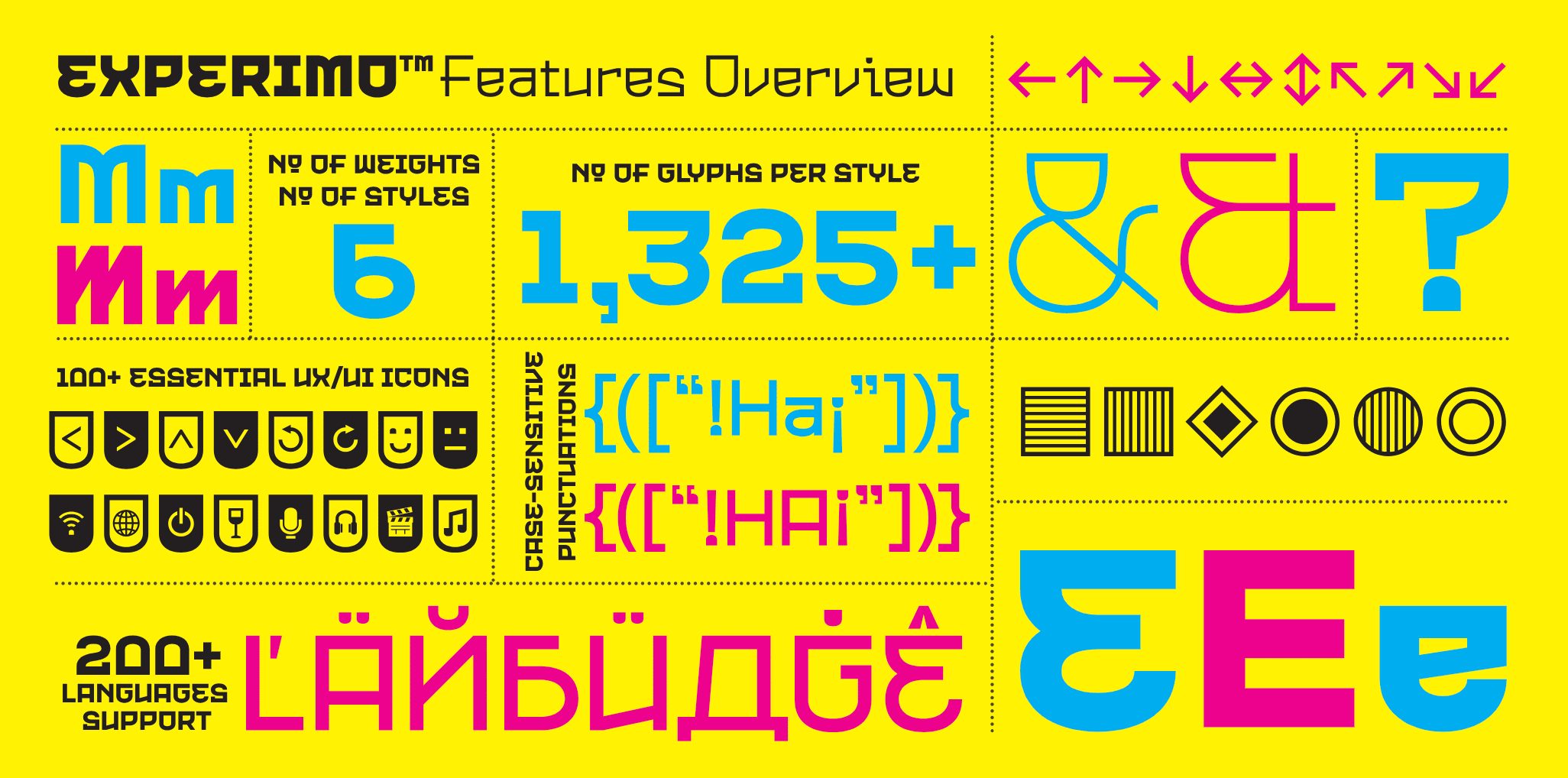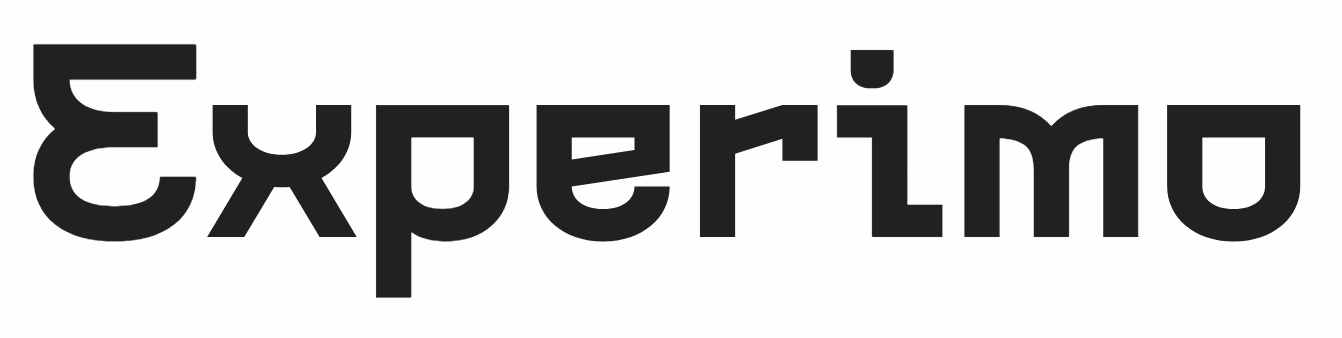
Happy Friday! Welcome to my monthly newsletter on fonts, designery things and biz tips to help your day-to-day work life.
“Blank page, blank page…!”
Where do you start when it's time to tell people about you and what you do? Top tip: don't start with a blank page when you're creating content!
I gather ideas for this newsletter throughout the month. A note on my phone here, a Google doc there. You could do the same. Maybe set up a Trello board or send yourself voice notes to capture your thoughts as they come?
And remember, content isn't just social media posts. It can be a newsletter, an email to clients announcing availability, or sharing that podcast you guested on. You're already creating, you just need to capture it. And then put it out there!
One typeface in my collection of Google doc ideas is my font of the month:
I’m working on a new client project and podcast cover art. I came across this typeface - Experimo by the R9 Type+Design foundry and designer, Tana Kosiyabong. It's very funky and reminds me of contemporary Japanese lettering - it really stands out. It’s fun and includes lots of glyphs, emojis and different weights. Check out the full set here.
What I’m reading:
Issue 10 of Type One magazine. Lush printed pages of type goodness. This issue explores type’s place in the design industry culture today.⁠
What I’m listening to:
The font one: The Type Convo Podcast - Season 2 episode 2 (oh hello, it's me!) The current state of Design in 2025 - part 2 hosted by Alen Kapetanovic
The design one: Creative Boom hosted by Katie Cowan Episode 171 with Haraldur Thorleifsson on Building with Kindness
The biz one: Small Business Casual by Emily Aborn Episode Damned if you do, Damned if you don’t.
Your work life on an A4 page (or two… maximum!)
I’ve just got back from giving Curriculum Vitae/Resume advice at a graduate careers fair at the university – Central St Martins. Whether you’re an experienced pro or just starting out, think about having your CV on file. Just in case you’re asked for it. Also, with the rise of AI and the scanners that read CVs - don't use columns because the readers read it line by line. Also remove your photo - AI bias is real! Seen the Netflix documentary, Coded Bias?
Branding that means business
I recently wrapped up a website project with Pauline Smith from The Comms Smith, a corporate communications specialist. With years of experience under her belt, Pauline needed a site that truly reflects her expertise. I also polished up her branding. Check out the before and after transformation I created in Squarespace. A professional photoshoot and fresh brand identity now captures who Pauline is, including subtle nods to her love of music. The result? A polished, professional online presence that's ready to impress the corporate world. If you're ready for a new site or brand refresh, book a call and let's get you client-ready.
That's all for this month! I hope you found something useful, whether it's a new typeface to play with, a podcast to queue up or just a reminder to keep capturing those ideas before they disappear.
Remember, your best work doesn't have to start with a blank page. It starts with all those little notes and creative gems you've been collecting. Record things along the way and it’ll save you a lot of stress. And we all want more calm in our lives.